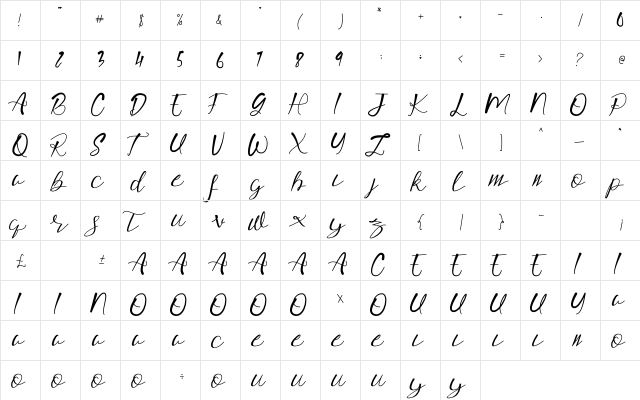
Lailatul Regular
| Designer | Fiqi_art |
Design Context for Lailatul Typeface
Lailatul is a composed and adaptable typeface that performs quietly and consistently across a wide range of design contexts.